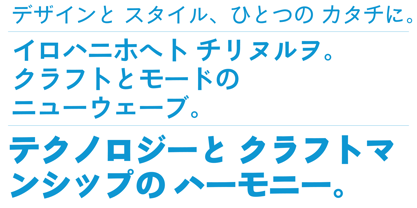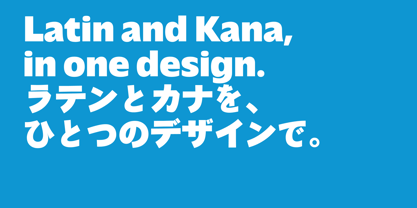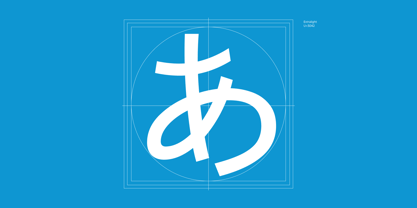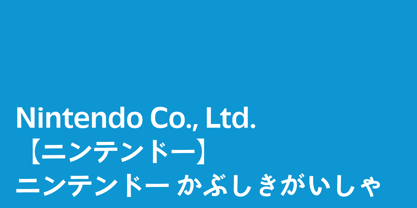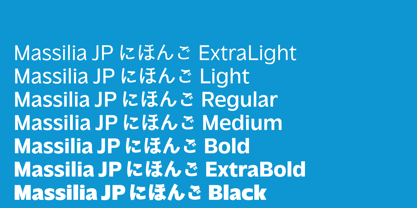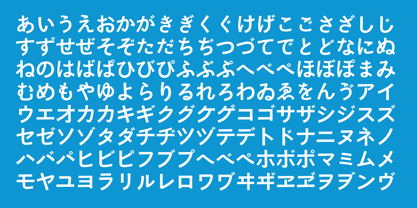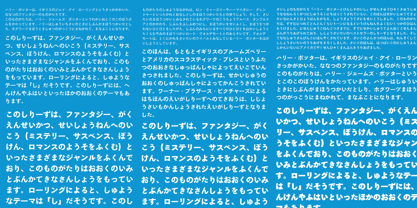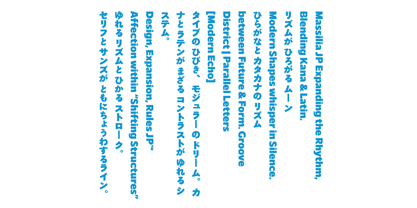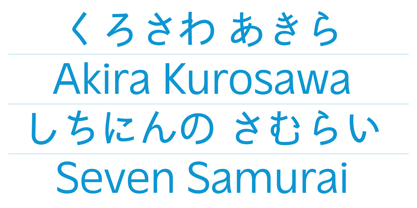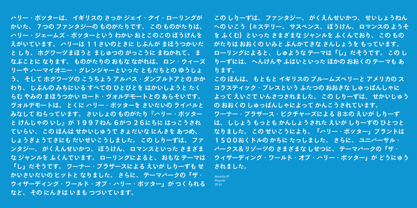
Massilia JP
Massilia JP is the Latin+Japanese (Kana) support of Massilia Font Family. Supporting both Horizontal and Vertical writing system.
Massilia is a tribute to Marseille, echoing the softness and the balance of the sunny south of France. This font family is inspired by both Roger Excoffon’s famous work and the the city itself. Balancing between brush-like features and geometric endings. Massilia bring a perfect balance to the rhythmic of a text layout. While allowing one to be able to harvest the full strength of its glyphs’ anatomy when being displayed in larger sizes with the bolder versions of the typeface, it is surprisingly soft and delicate when used in lighter weights, smaller sizes, and long text layouts.